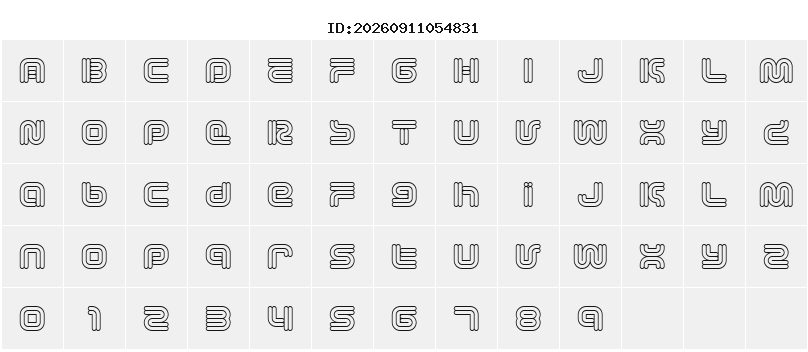
Vectroid Astro Preview
• Font Name: Vectroid Astro
• Full Font Name: Vectroid Astro
• Designer: Andreas Nylin
About Vectroid Astro.ttf
Vectroid Astro.ttf is a modern, elegant sans-serif font designed for ultimate readability and visual harmony. Perfect for branding, headlines, web design, and print materials.